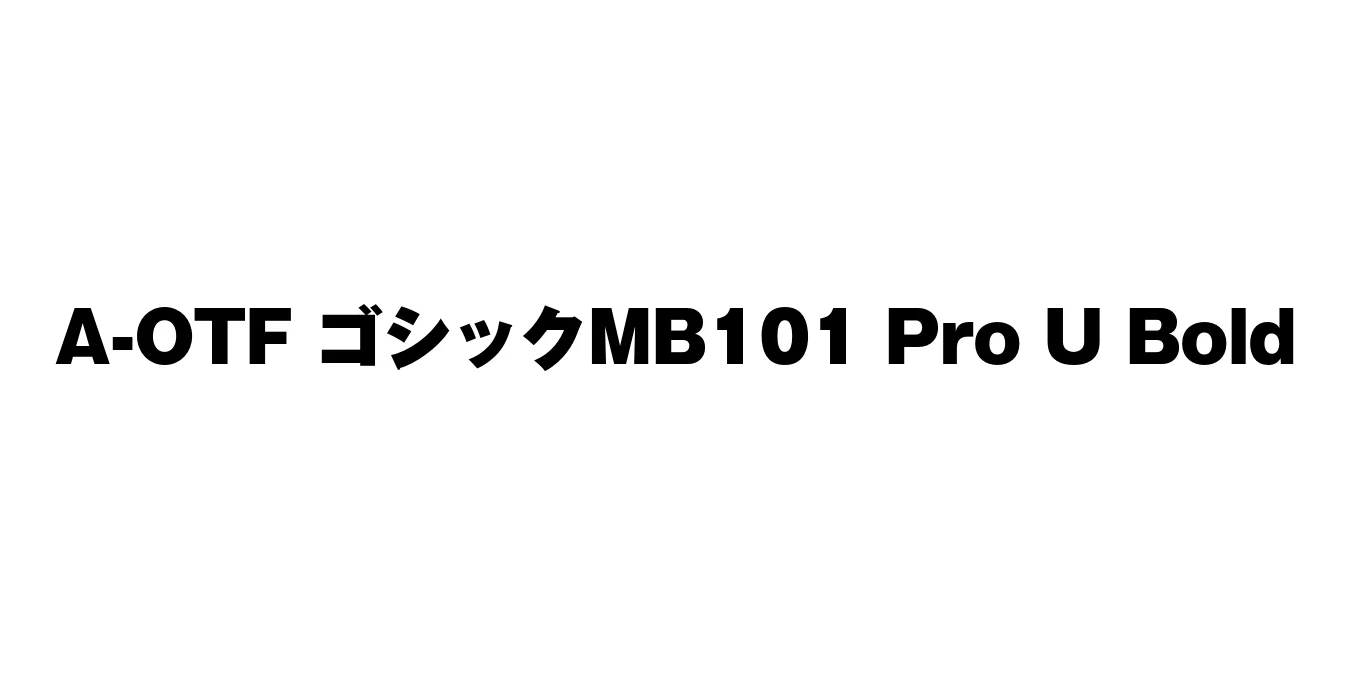
A-OTF ゴシックMB101 Pro U Bold
Designed by Morisawa Design Team
| Font Name | A-OTF ゴシックMB101 Pro U |
| Category | Gothic / Sans-serif |
| Designer | Morisawa Design Team |
| Similar Fonts | Hiragino Kaku Gothic, Kozuka Gothic, Shin Go |
A-OTF Gothic MB101 Pro U Bold is a cornerstone of professional Japanese typography, developed by the industry-leading foundry Morisawa. Originally rooted in the era of phototypesetting, MB101 has evolved into a digital standard known for its exceptional balance and traditional Gothic structure. The 'U' weight represents the 'Ultra Bold' end of the spectrum, offering a powerful visual presence while maintaining the sophisticated elegance typical of Japanese sans-serif designs.
This typeface is specifically engineered for high-impact legibility. Its design features a high center of gravity and meticulously adjusted stroke widths that prevent complex Kanji from appearing cluttered. It is highly regarded in the design community for its versatility in both print and digital media, serving as a reliable choice for professional designers who require a combination of strength and clarity in their layouts.
A-OTF ゴシックMB101 Pro U Bold Best Uses
Perfect for high-impact titles in magazines and posters that require a strong voice.
Its heavy weight and clear structure make it ideal for public displays and wayfinding.
Excellent for bold marketing slogans and commercial copy that needs to stand out.
Used by major corporations for logotypes that convey stability and authority.